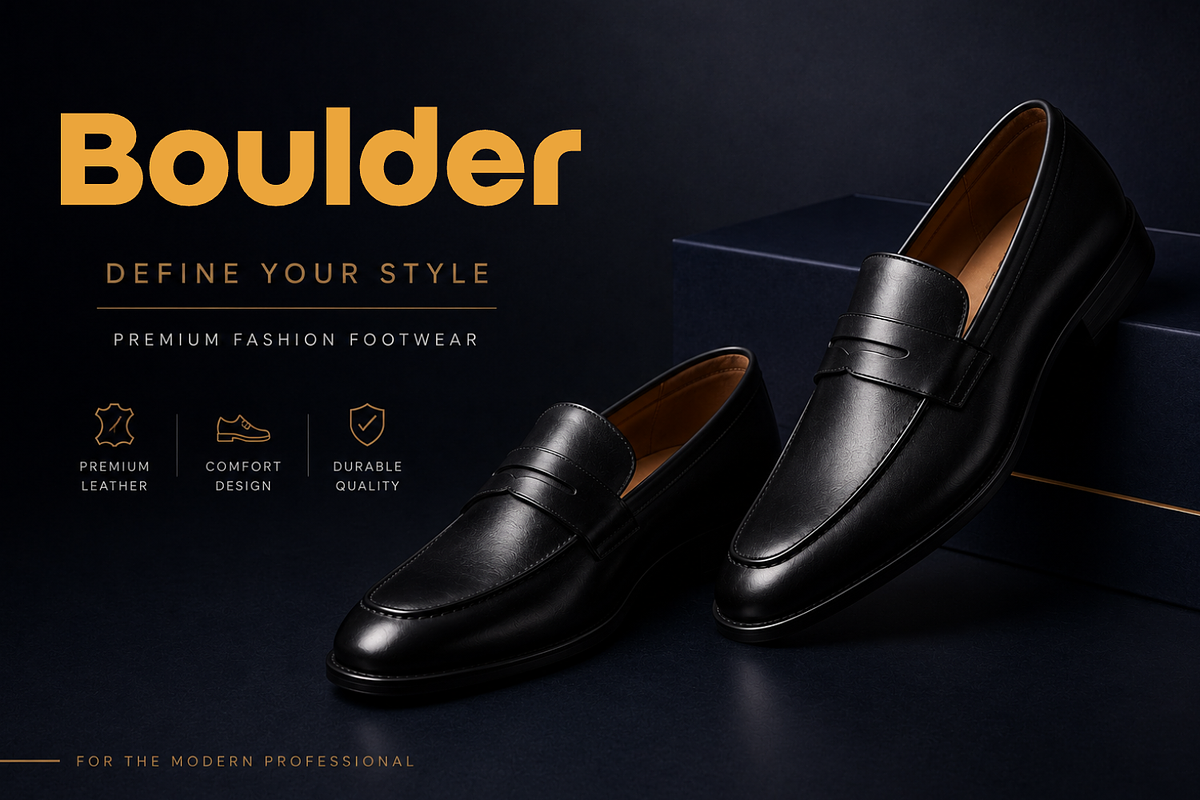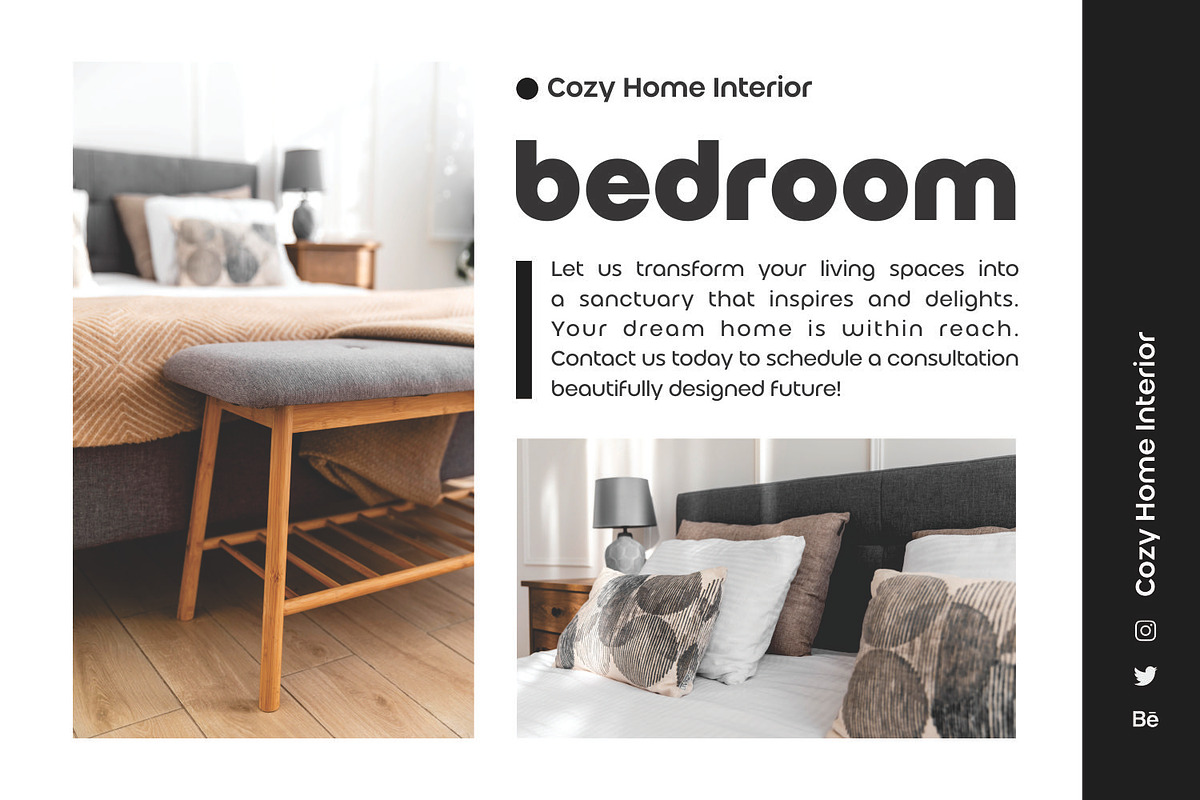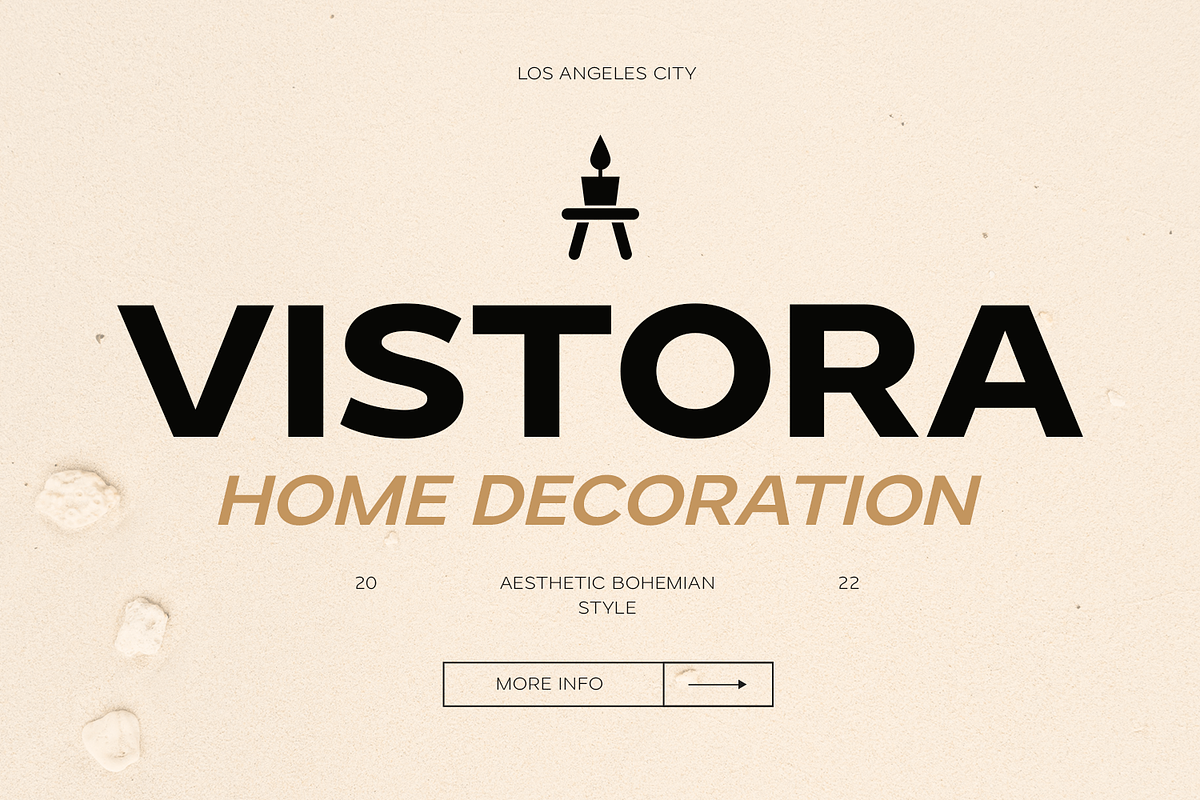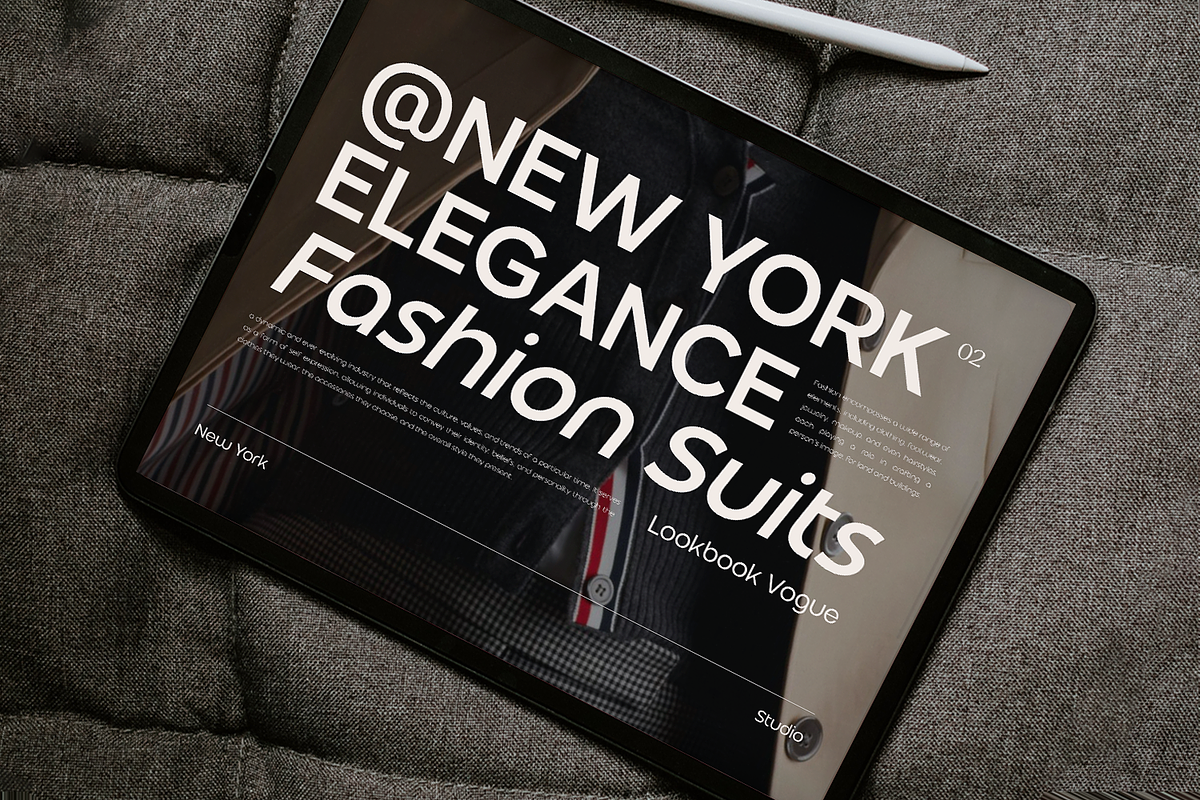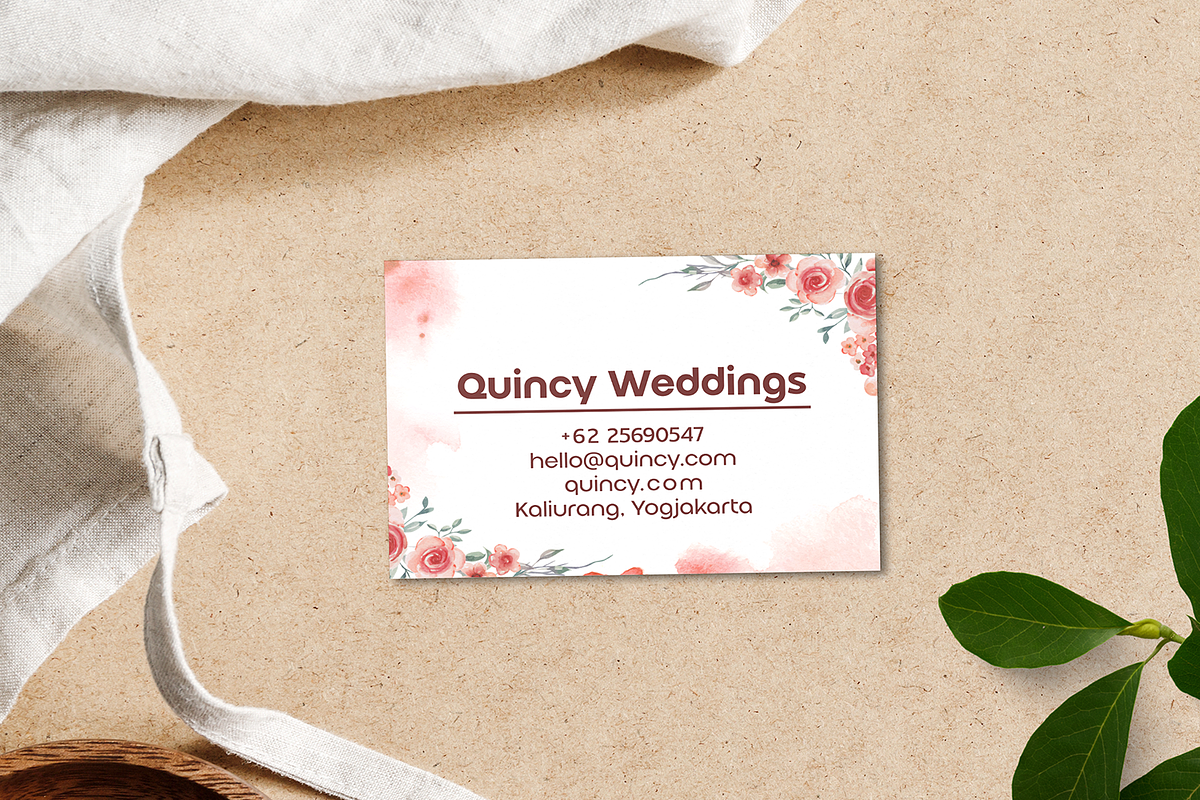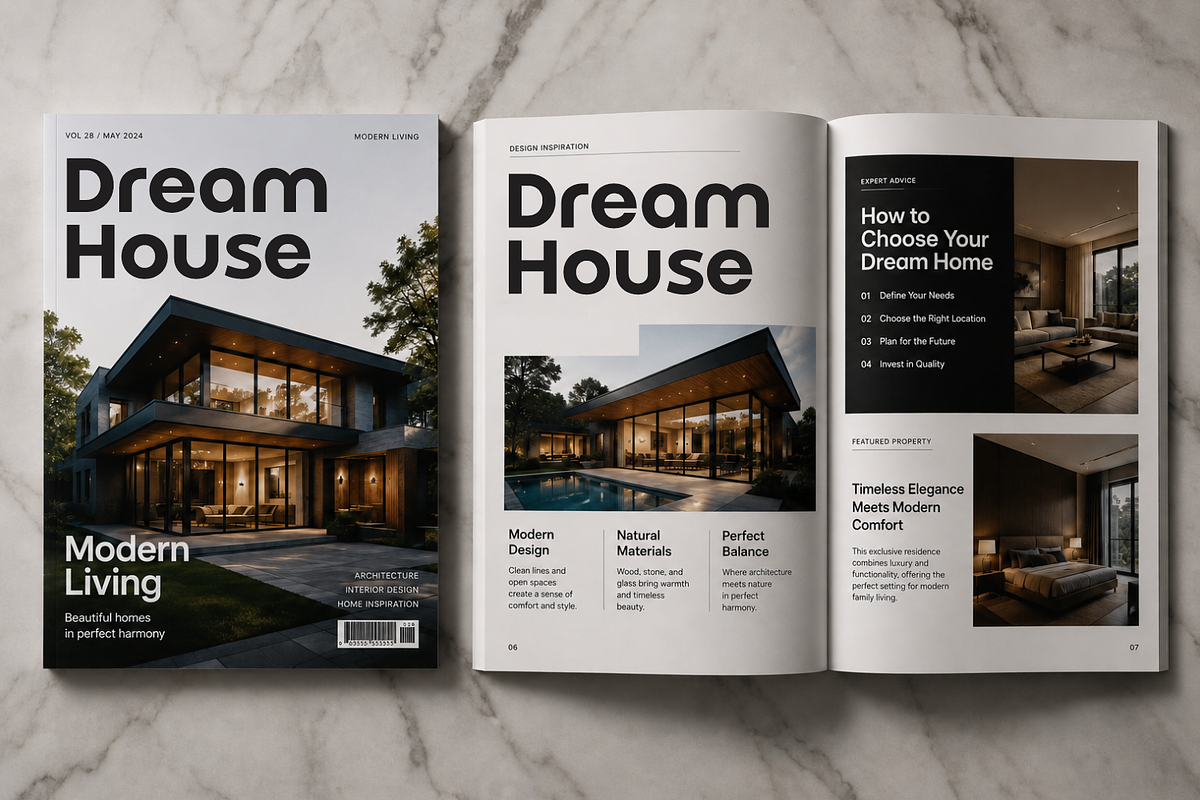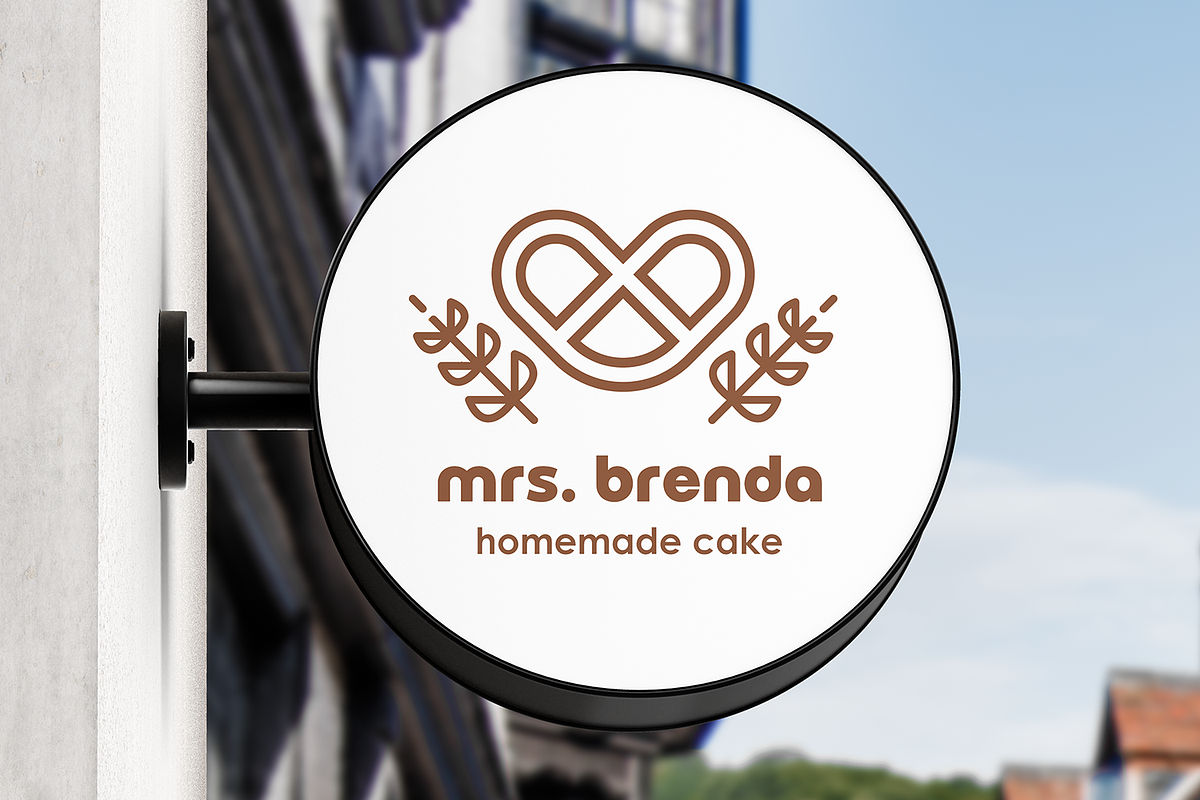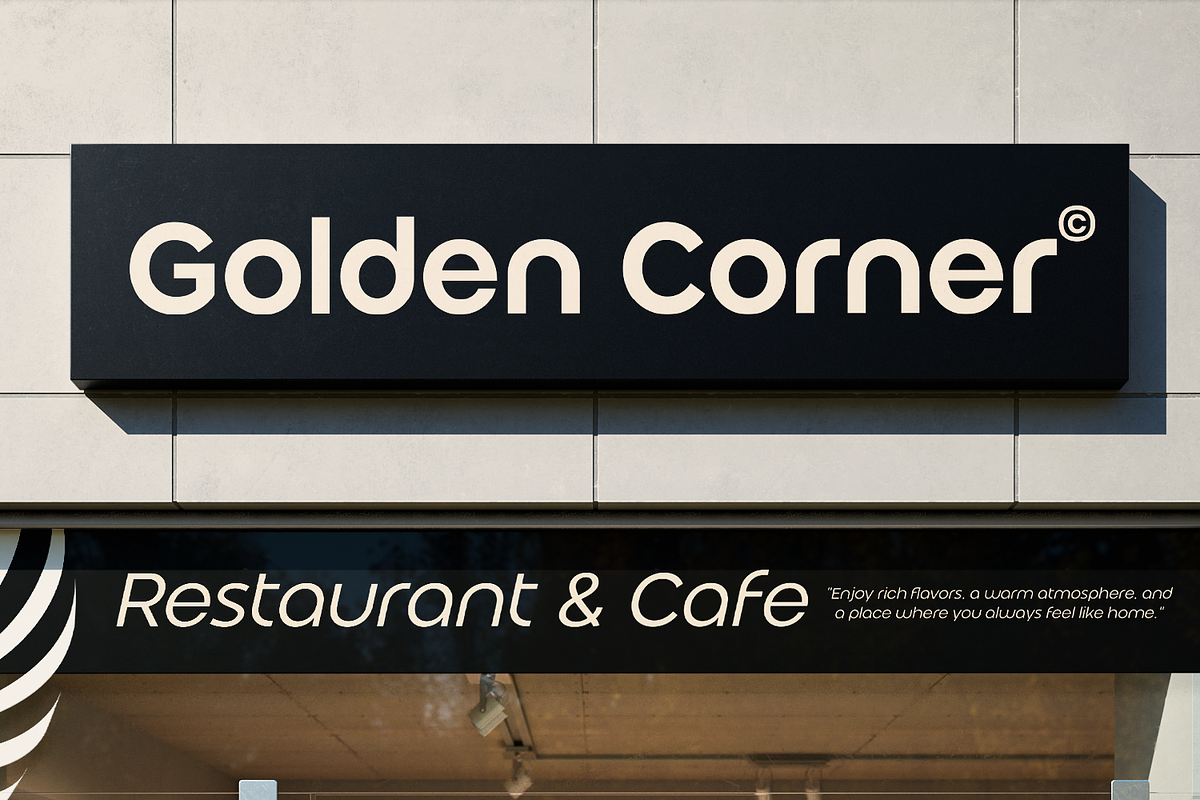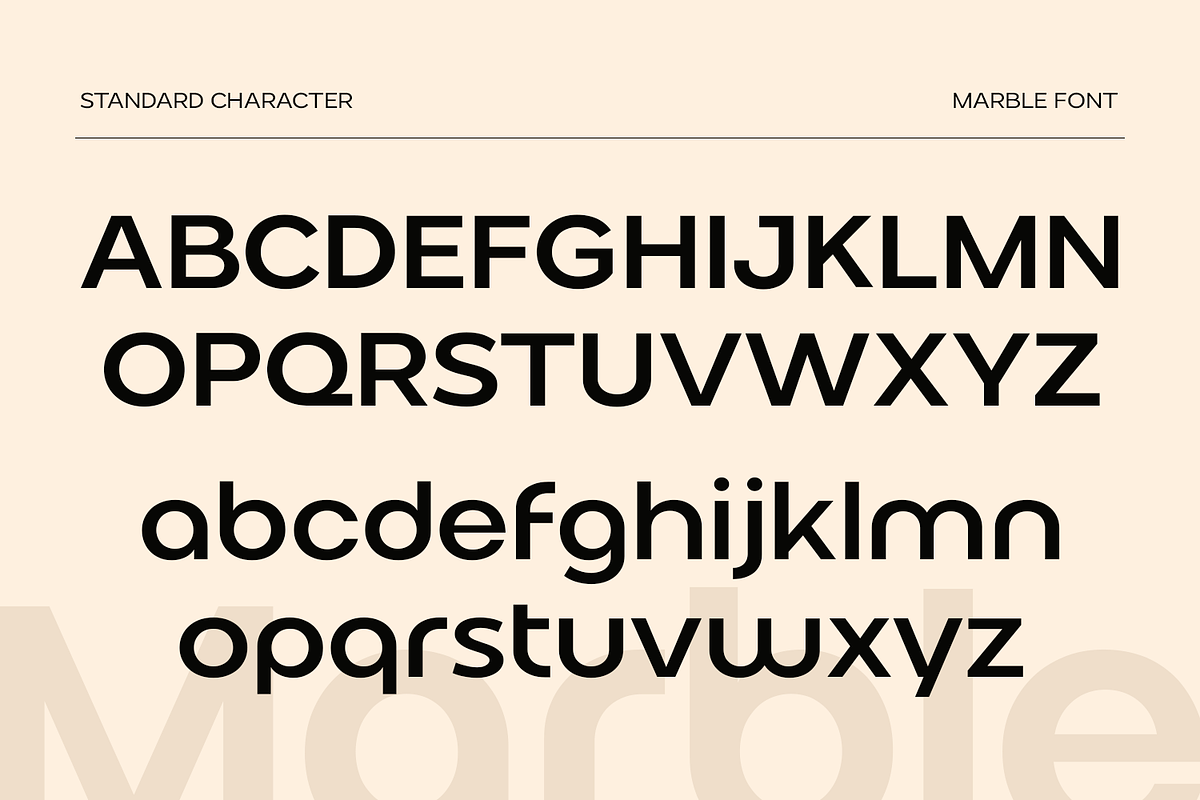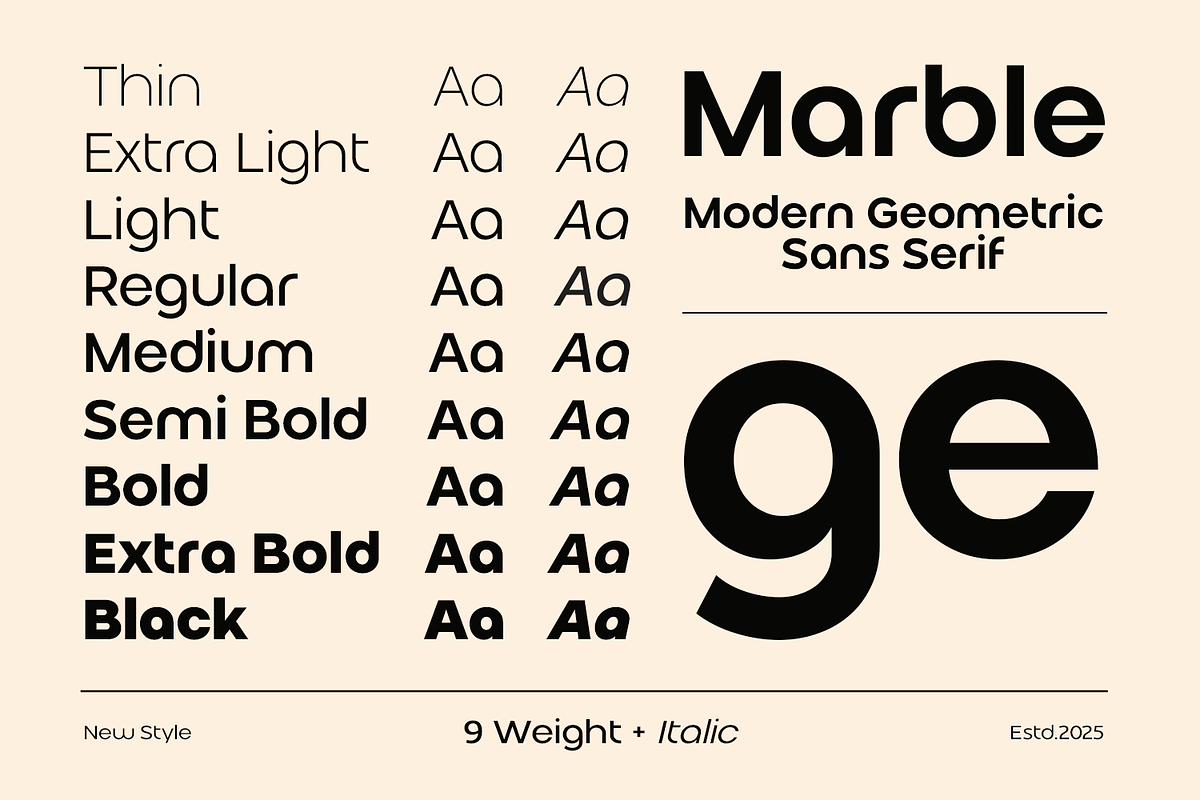
Marble - Logo Font
Marble Font: Clean, Modern, and Versatile For Logo and Branding
Marble is a contemporary sans serif font family created specifically for logo design, visual branding, and premium identity projects. Featuring distinctive geometric forms, clean construction, and confident proportions, Marble delivers a strong visual personality while maintaining exceptional simplicity. Its modern appearance makes it an ideal choice for brands seeking a memorable and professional identity.
Inspired by minimalist design principles, Marble combines bold simplicity with refined craftsmanship to create typography that feels both timeless and innovative. Every letter is carefully designed to achieve a harmonious balance between elegance and functionality, allowing logos and headlines to stand out with confidence across both print and digital media.
With its unique character shapes, balanced spacing, and meticulously refined kerning, Marble offers outstanding visual consistency in every composition. The clean lines and subtle geometric details create a recognizable identity that performs beautifully in logos, brand systems, packaging, editorial titles, and modern marketing materials.
Marble is an excellent choice for designers working on luxury brands, fashion labels, technology companies, architecture studios, cosmetics, creative agencies, lifestyle businesses, and premium corporate identities. Its versatile design adapts effortlessly to a wide range of branding concepts, from minimal and sophisticated to bold and contemporary.
Designed primarily for logo creation and display typography, Marble delivers maximum impact in large-format applications while remaining clean and highly legible. Whether you're building a modern brand identity, designing premium packaging, or crafting elegant promotional materials, Marble provides the flexibility and visual strength needed to create professional and lasting impressions.
Modern Logo Font Designed specifically for logos, branding, and visual identity projects.
Unique Geometric Design Distinctive letterforms with clean geometric construction for memorable branding.
Minimal & Elegant A refined minimalist aesthetic that creates a premium and professional appearance.
Optimized for Branding Perfectly suited for logos, headlines, packaging, and corporate identity systems.
Professional Kerning Carefully adjusted spacing for smooth, balanced, and polished typography.
Multilingual Support Comprehensive language support for international branding and design projects.
• Logo Design & Brand Identity • Fashion & Luxury Branding • Corporate Identity Systems • Technology & Startup Branding • Editorial & Magazine Headlines • Premium Product Packaging • Advertising & Marketing Materials • Website & UI Design • Posters & Signage • Modern Print & Digital Projects
Build Powerful Brand Identities with Marble
Marble is crafted for designers who demand clean aesthetics, distinctive character, and professional versatility in every project. Its unique geometric forms, refined proportions, and modern simplicity make it an excellent choice for creating logos and branding that leave a lasting impression.